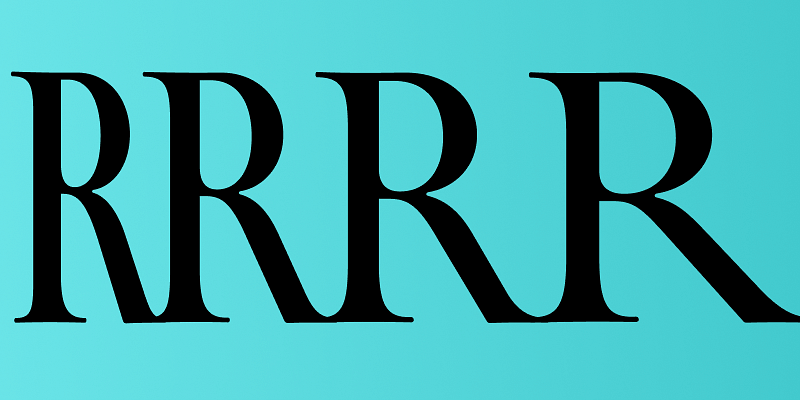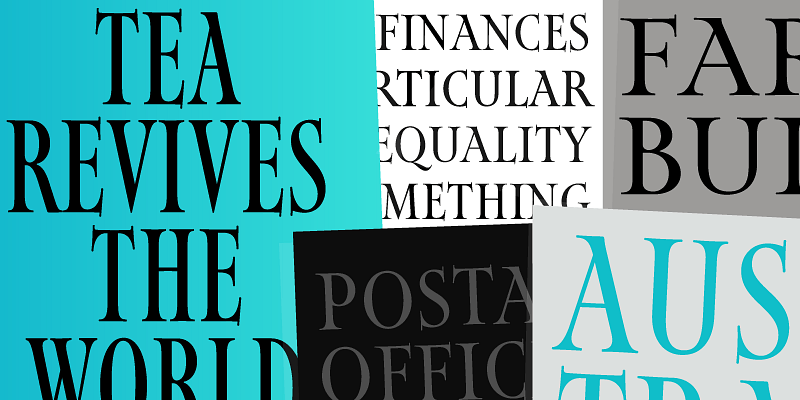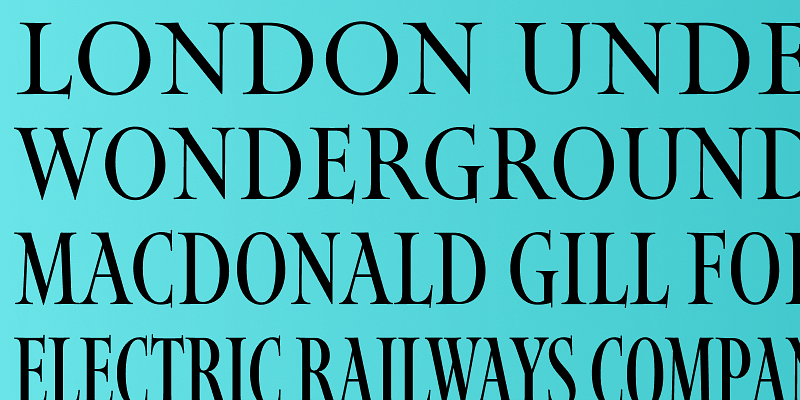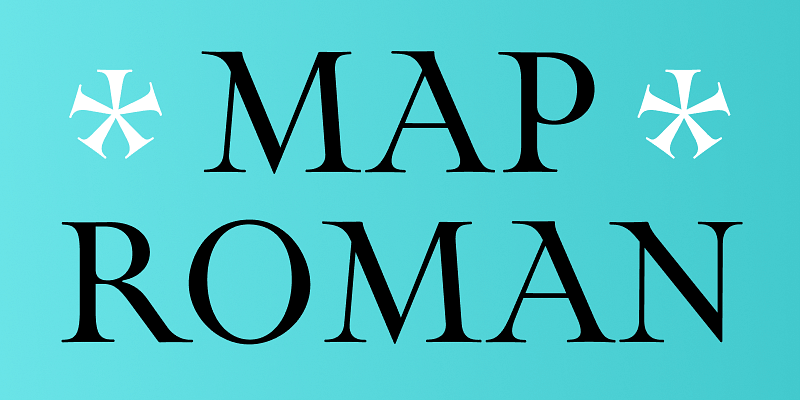
Map Roman is an elegant set of titling capitals based on the lettering of MacDonald “Max” Gill, whose work included a variety of beautifully handlettered maps of London, the United Kingdom, and the world. After stumbling upon his work in a cartography museum, DJR tried his hand at a typographical interpretation of his style that attempts to capture the liveliness and authority of his letterforms. Map Roman distinguishes itself in its flexibility: at its widest, it is broad and luxuriant, while its narrower widths retain their charm even as they cram into the tightest of spaces.
David Jonathan Ross draws letters of all shapes and sizes for custom and retail typeface designs from his studio in the woods of Western Massachusetts. A native of Los Angeles, He began drawing typefaces at Hampshire College and joined The Font Bureau in 2007 where he honed his bézier-wrangling skills. Now he publishes his typeface designs at his own foundry, DJR, as well as working on projects with Type Network and developing unusual display faces for his Font of the Month Club.